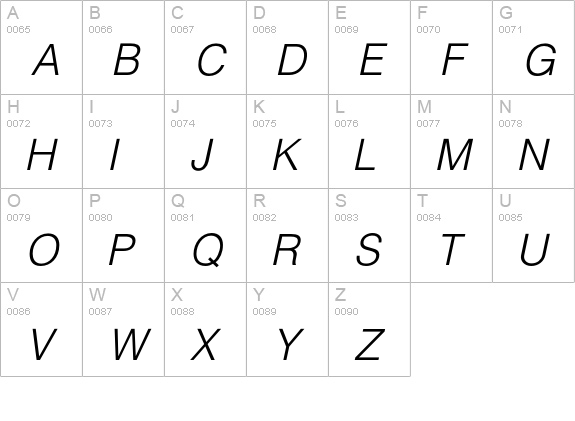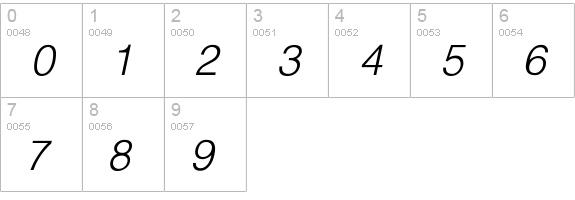
HallmarkeLightOblique Font Details
HallmarkeLightOblique is a stunning and versatile font that effortlessly blends elegance with a touch of modernity. Its unique oblique design adds a subtle twist, making it perfect for projects that require a hint of creativity and sophistication. The sleek and fine lines of HallmarkeLightOblique exude a sense of luxury and refinement, making it an ideal choice for high-end branding, logo design, and editorial work. Its graceful curves and gentle slant create a visually pleasing aesthetic that captures attention and leaves a lasting impression. What sets HallmarkeLightOblique apart is not just its impeccable design, but also its accessibility. This remarkable font is freely available to download at FontsMarket.com, allowing designers and creatives to easily incorporate it into their projects without any constraints. It offers a seamless user experience, enabling smooth integration into various design software and platforms. Whether used in print or digital media, HallmarkeLightOblique effortlessly adapts to any context, enhancing the overall visual appeal. Its versatility extends to a wide range of applications, including advertisements, packaging, invitations, and social media graphics. With HallmarkeLightOblique, the possibilities are endless. In addition to its striking appearance, HallmarkeLightOblique is also highly legible, ensuring optimal readability across different sizes and mediums. Its clean and well-defined letterforms guarantee that your message will be conveyed with clarity and style, making it an excellent choice for headlines, subheadings, and body text alike. Embrace the elegance and sophistication of HallmarkeLightOblique, a font that effortlessly combines classic charm with a contemporary twist. Download this exceptional font for free at FontsMarket.com and elevate your designs to new heights of excellence.